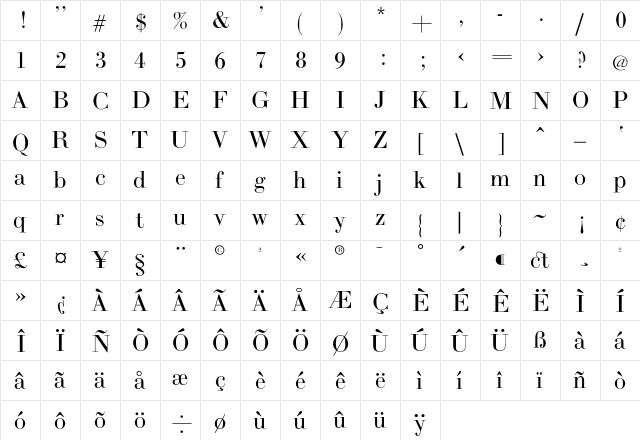
BodoniZL Regular
Design Context for BodoniZL Typeface
BodoniZL takes a measured approach to typography — its balanced proportions and neutral character make it a reliable workhorse for both digital and print work.